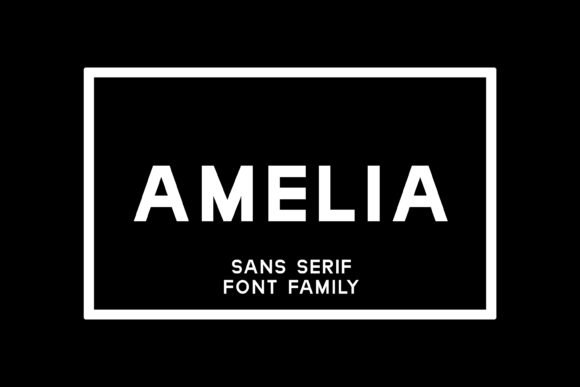
The Perfect Font for Your Next Design Project
Have you ever stared at a blank canvas, waiting for inspiration to strike? The blank page can be intimidating, but it’s in these moments of creative limbo that some of the most beautiful ideas are born. For designers, finding the right font can be the key to unlocking a project’s true potential.
Enter Amelia Font, a sleek and sophisticated sans serif font that’s designed to elevate any design. With its clean lines and elegant feel, Amelia Font is the perfect addition to any project, from marketing materials to editorial layouts. Whether you’re a seasoned pro or just starting out, this versatile font is sure to help your designs stand out from the crowd.
Amelia Font Key Features
- Font Family: Amelia
- Size: 20 font styles, ranging from Light to ExtraBold
- Resolution: Supports both screen and print resolutions
- Unique Characteristics: Designed to provide a modern, elegant feel with a focus on readability; includes a wide range of language support
- Character Set: Supports over 200 languages, including Latin, Cyrillic, and Greek scripts
Amelia Font Review
Amelia Font is a beautiful, elegant font that I’ve had the pleasure of working with. It has a classic, timeless feel to it that can elevate any design project.
- Classic, elegant feel that works well for luxury brands or high-end designs
- Highly legible, making it perfect for body text or headlines
- Works well in both print and digital formats
- Comes in a variety of weights and styles, making it versatile for different design needs
- Can feel a bit generic or overused in certain contexts
- Not ideal for bold, eye-catching designs that need a lot of personality
- May not be the best choice for modern or trendy designs that need a more edgy feel
Overall, I think Amelia Font is a solid choice for designers who want a classic, elegant look without too much fuss. While it may not be the most exciting or adventurous font, it gets the job done and looks great doing it.
4. Poppins
Poppins is a modern sans-serif font with a focus on clean lines and geometric shapes. It’s perfect for creating a minimalistic and elegant look in digital products, logos, and branding materials. Poppins has a slightly more playful feel than Amelia Font, but it shares a similar level of sophistication and elegance.
Exploring Amelia Font in Creative Projects
Project 1: Vintage-Inspired Travel Poster
Create a captivating travel poster that transports viewers to a bygone era. Amelia Font’s elegant, cursive script will evoke a sense of luxury and sophistication.
The recommended font size for using Amelia Font is between 12pt and 24pt, depending on the intended use and design context. For body text, 14pt or 16pt is a good starting point, while headings can be set to 18pt or 20pt.